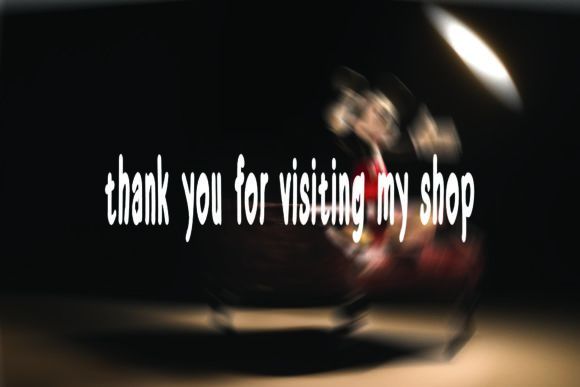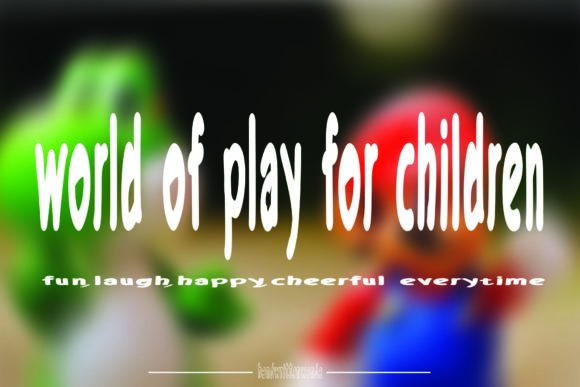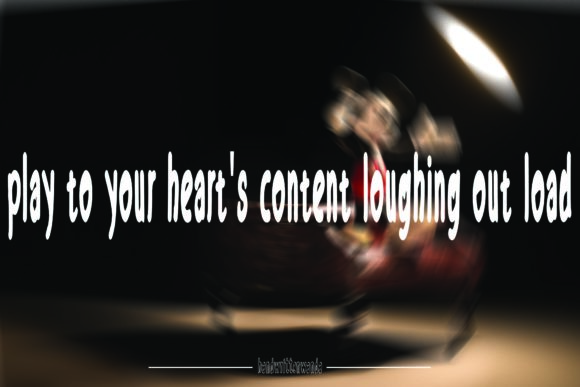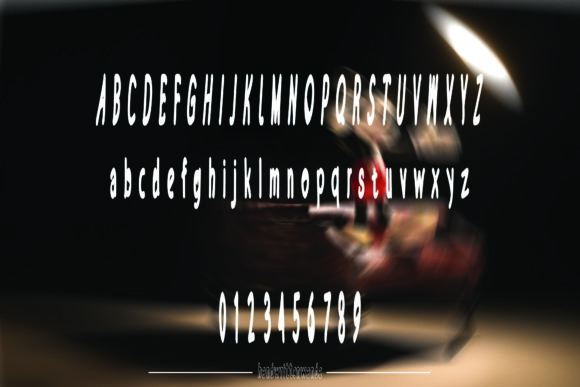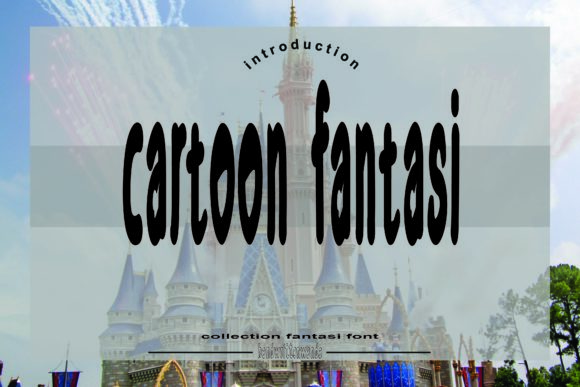
Introducing Cartoon Fantasi Font: Elevate Your Designs with an Adventurous Twist
Are you a designer or crafter looking for a font that can add a touch of adventure and authenticity to your next project? Look no further than Cartoon Fantasi Font! This bold and tall handwritten font is perfect for making a statement and bringing your designs to life.
What is Cartoon Fantasi Font?
Cartoon Fantasi is a unique and eye-catching font that is sure to capture the attention of your audience. With its bold and tall letters, this font is perfect for creating eye-catching headlines, titles, and quotes. Its handwritten style gives it a personal and authentic feel, making it ideal for designs that require a touch of personality.
Key Features of Cartoon Fantasi Font
- Bold and Tall Letters: The font’s bold and tall letters make it perfect for creating eye-catching headlines and titles.
- Handwritten Style: The font’s handwritten style gives it a personal and authentic feel, making it ideal for designs that require a touch of personality.
- Adventurous and Authentic Feel: The font’s unique style adds an adventurous and authentic feel to your designs, making it perfect for projects that require a bold statement.
Uses of Cartoon Fantasi Font
Cartoon Fantasi Font is a versatile font that can be used in a variety of design projects, including:
- Logos and Branding: The font’s bold and tall letters make it perfect for creating eye-catching logos and branding materials.
- Posters and Flyers: The font’s adventurous and authentic feel makes it ideal for creating posters and flyers that require a bold statement.
- Social Media Graphics: The font’s handwritten style makes it perfect for creating social media graphics that require a personal and authentic feel.
- Signage and Displays: The font’s bold and tall letters make it perfect for creating eye-catching signage and displays.
Benefits of Using Cartoon Fantasi Font
Using Cartoon Fantasi Font in your designs offers a range of benefits, including:
- Unique and Eye-Catching Designs: The font’s bold and tall letters make it perfect for creating unique and eye-catching designs.
- Personal and Authentic Feel: The font’s handwritten style gives it a personal and authentic feel, making it ideal for designs that require a touch of personality.
- Increased Engagement: The font’s adventurous and authentic feel can help increase engagement and capture the attention of your audience.
Tips for Using Cartoon Fantasi Font
Here are some tips for using Cartoon Fantasi Font in your designs:
- Use it for Headlines and Titles: The font’s bold and tall letters make it perfect for creating eye-catching headlines and titles.
- Experiment with Colors: The font’s handwritten style makes it perfect for experimenting with different colors and styles.
- Pair it with Other Fonts: The font’s unique style makes it perfect for pairing with other fonts to create a unique and eye-catching design.
Cartoon Fantasi Font is a bold and tall handwritten font that is perfect for adding an adventurous and authentic feel to your designs. With its unique style and versatility, this font is ideal for a range of design projects, from logos and branding to posters and social media graphics. Whether you’re a designer or crafter, Cartoon Fantasi Font is a must-have font that can help elevate your designs and capture the attention of your audience.